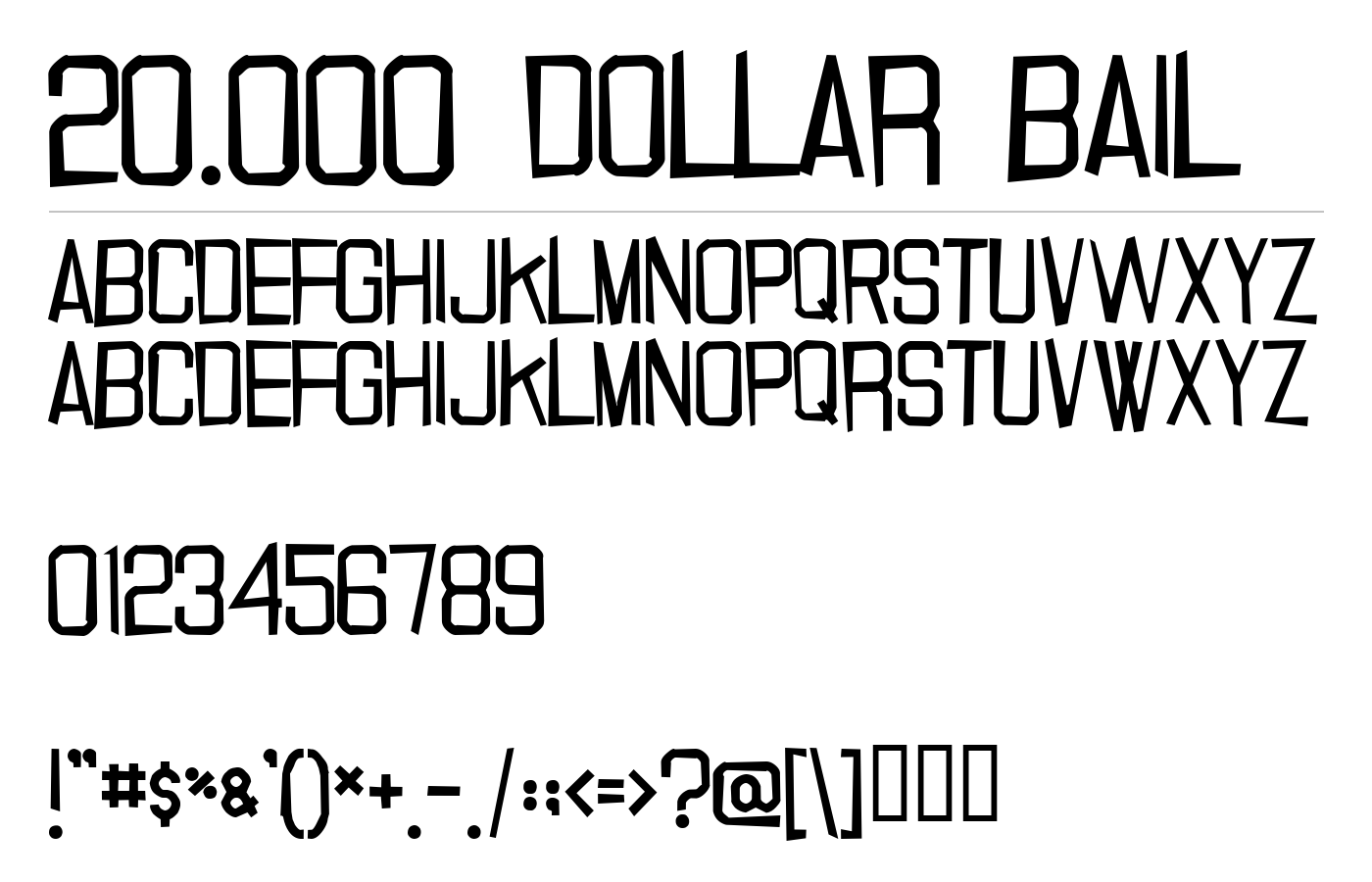
20.000 Dollar Bail is a quirky, condensed sans serif font with uneven, hand-drawn strokes giving it a playful and slightly rough character. Its tall, narrow letterforms and irregular shapes create a dynamic, informal feel, making it ideal for eye-catching headlines, creative posters, or designs that want to convey a bold, unconventional vibe. This font works well where personality and a bit of edge are needed to grab attention and stand out.